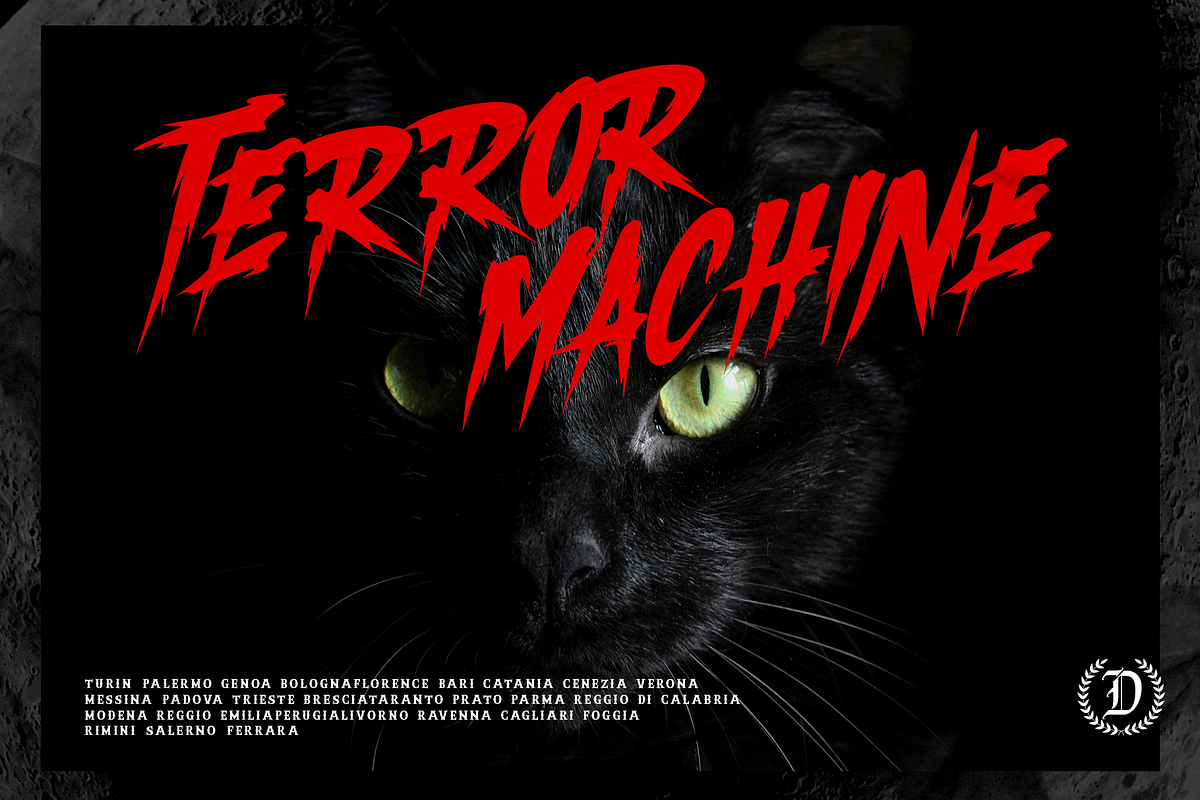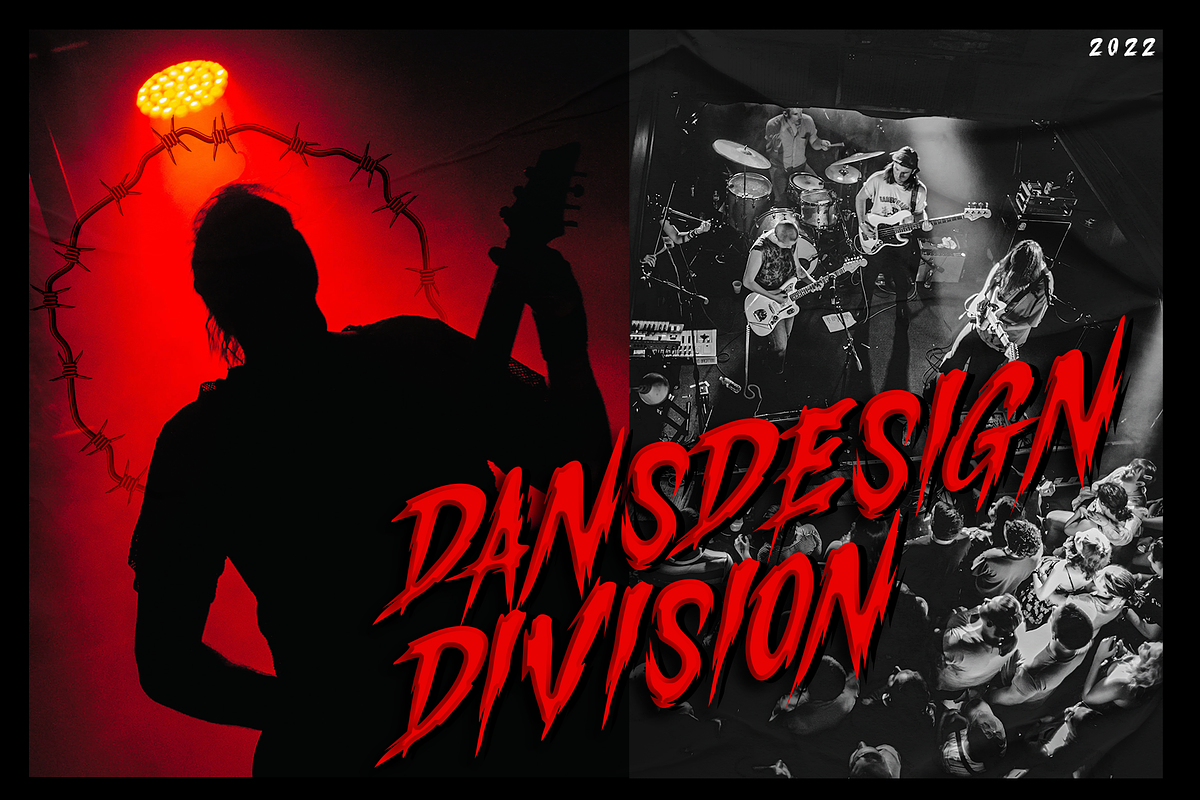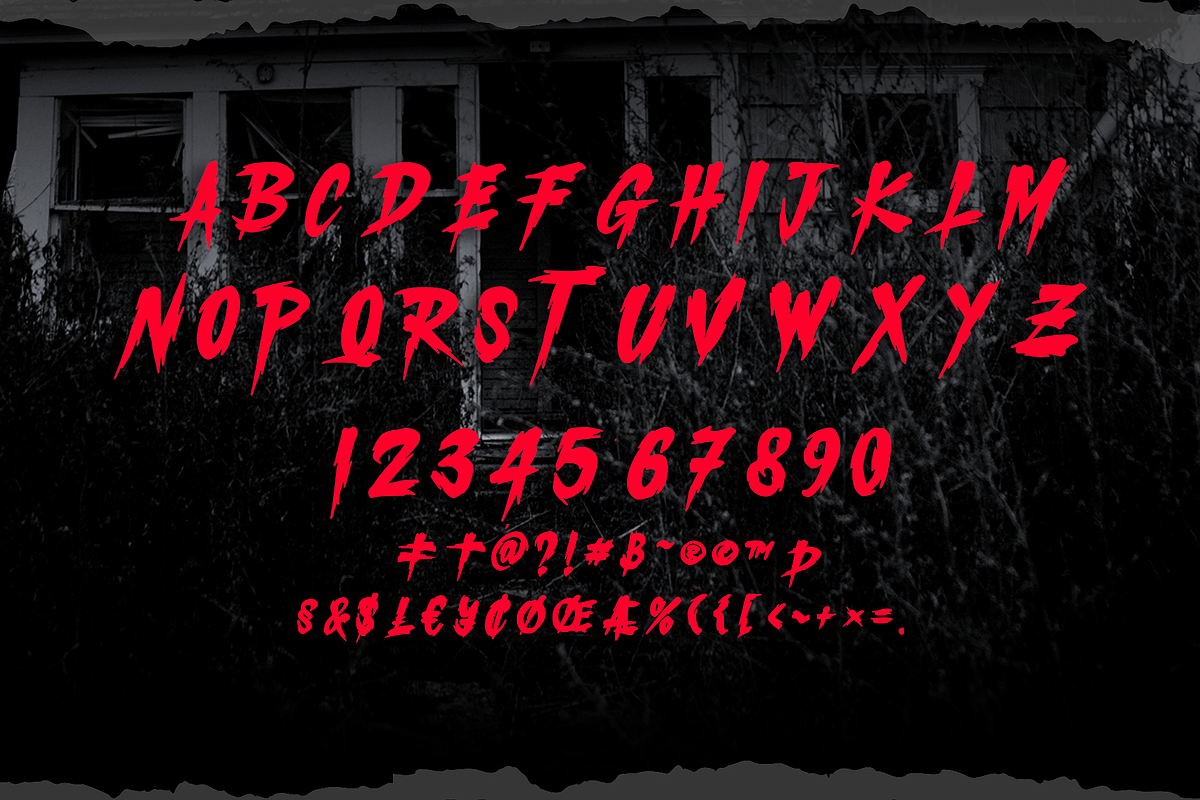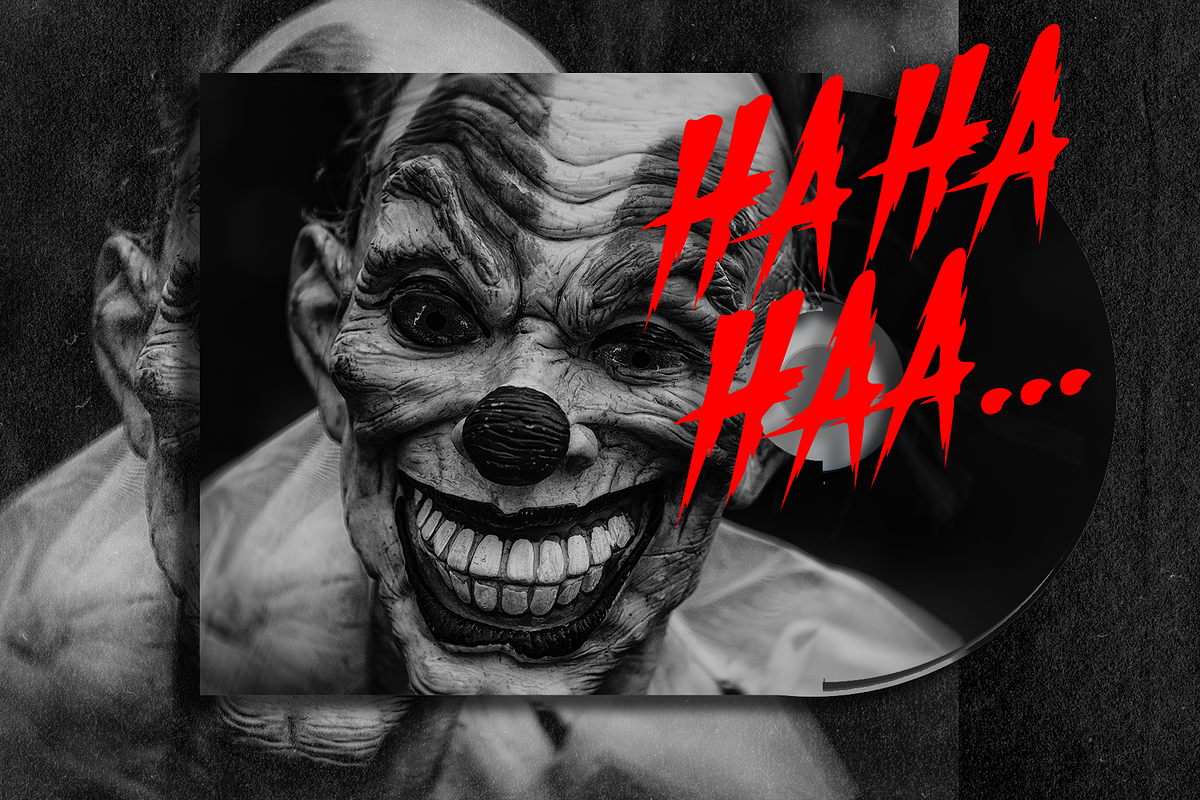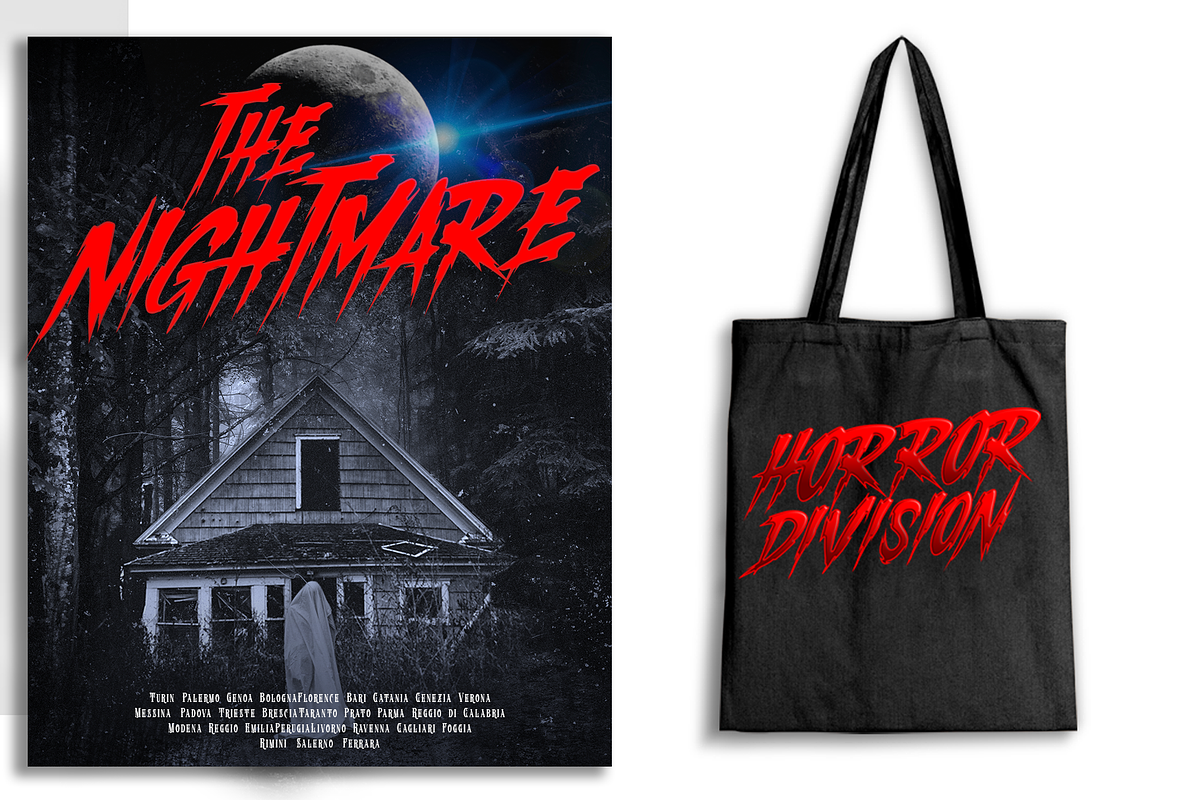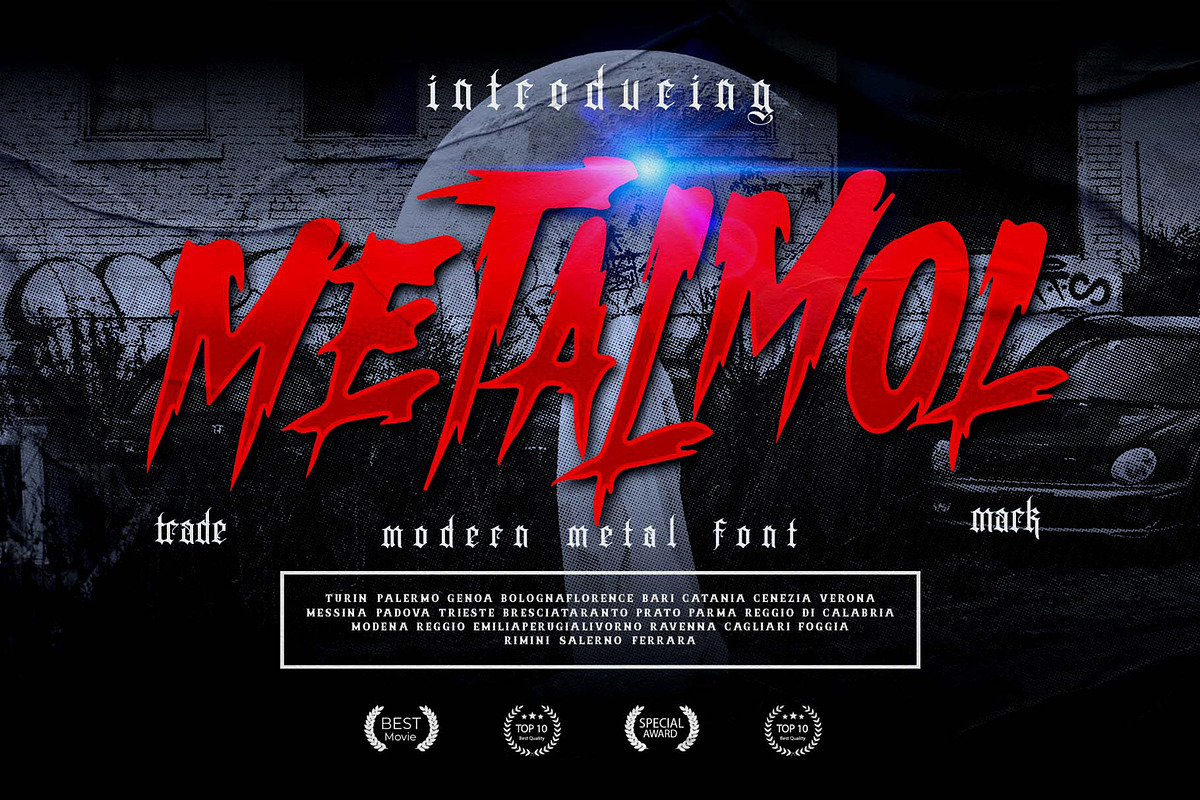
METALMOL Modern Blackletter
Dansdesign Proudly present METALMOL Modern Blackletter , This font is made with references to various letters that I combine and design with my style.
METALMOL Modern Blackletter are great and usefull for product logo, Tshirt, poster tittle, headline, packaging, badge, card logo, clothing brand logo, Vintage design and much more